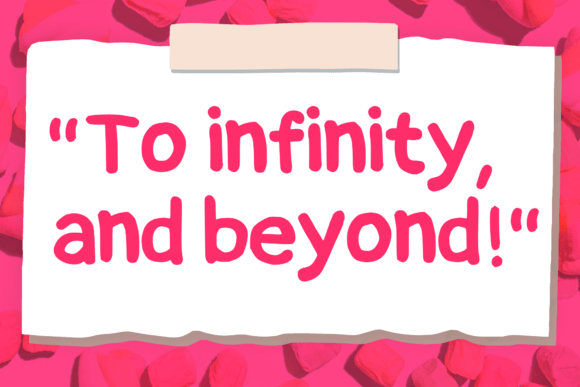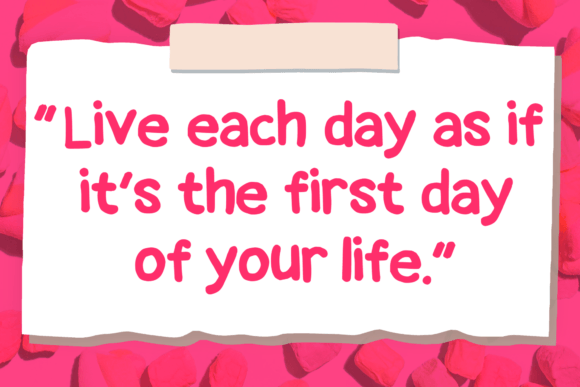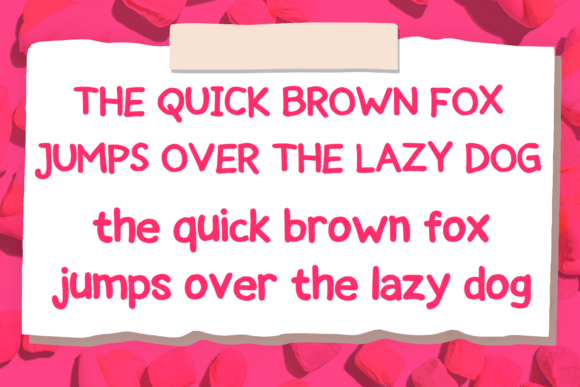
Candy Comic Font: Add a Touch of Whimsy to Your Designs
Are you looking for a font that can add a dash of fun and playfulness to your designs? Look no further than the Candy Comic Font! This delightful handwritten sans serif font is perfect for creating a wide range of projects, from t-shirts and kids’ book designs to greeting cards, stickers, and posters.
The Versatility of Candy Comic Font
One of the best things about Candy Comic Font is its incredible versatility. Its comical and carefree style makes it suitable for a variety of design projects, including:
- T-shirts and apparel: Add a fun and quirky touch to your t-shirt designs with Candy Comic Font. Its playful style is sure to appeal to kids and adults alike!
- Kids’ book designs: Create engaging and interactive children’s books with Candy Comic Font. Its whimsical style is perfect for storybooks, activity books, and more.
- Greeting cards: Add a personal touch to your greeting cards with Candy Comic Font. Its friendly and approachable style makes it perfect for birthdays, holidays, and special occasions.
- Stickers and posters: Create eye-catching stickers and posters with Candy Comic Font. Its bold and playful style is sure to grab attention!
Why Choose Candy Comic Font?
So, why choose Candy Comic Font for your design projects? Here are just a few reasons:
- Unique and playful style: Candy Comic Font has a one-of-a-kind style that’s sure to stand out from the crowd. Its comical and whimsical design makes it perfect for projects that need a touch of personality.
- Easily readable: Despite its playful style, Candy Comic Font is easily readable, making it perfect for both digital and print projects.
- Highly versatile: As mentioned earlier, Candy Comic Font is incredibly versatile and can be used for a wide range of design projects.
Design Tips and Inspiration
Now that you’ve fallen in love with Candy Comic Font, here are some design tips and inspiration to get you started:
- Pair with bold colors: Candy Comic Font looks amazing with bold and bright colors. Try pairing it with colors like pink, blue, and yellow to create a fun and playful design.
- Add illustrations: Candy Comic Font is perfect for illustrations and graphics. Try adding illustrations of animals, food, or other whimsical elements to create a fun and engaging design.
- Experiment with textures: Add some texture to your design with Candy Comic Font. Try using textures like glitter, polka dots, or stripes to create a unique and eye-catching design.
Get Creative with Candy Comic Font
Candy Comic Font is a fun and comical handwritten sans serif font that’s perfect for designers and crafters who want to add a touch of whimsy to their designs. With its incredibly versatile style and easily readable design, it’s perfect for a wide range of projects.